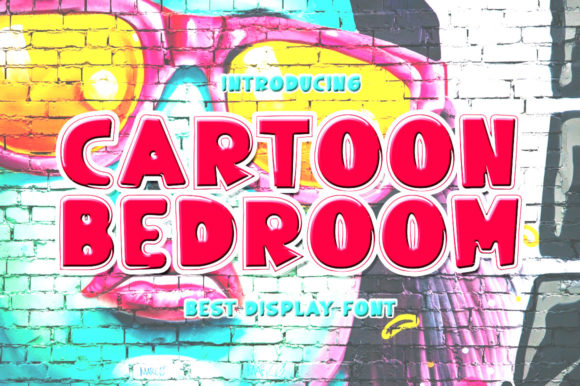
Dive into the world of Cartoon Bedroom, a font collection that takes you back to the days of laughter, imagination, and boundless creativity. Crafted by Seven Letter, these kid-friendly fonts bring a touch of whimsy and charm to all your digital adventures.
Meet Cartoon Bedroom, a friendly, thick lettered font that emanates fun in every stroke. Let your imagination run wild as this captivating display font transforms your words into playful masterpieces. Whether you're crafting personalized invitations, designing vibrant social media posts, or creating captivating presentations, Cartoon Bedroom has got you covered.
This font is more than just a collection of letters; it's a gateway to unleashing your inner child. With its bold and playful personality, Cartoon Bedroom has the power to transport you to a world where dreams come alive. It's the perfect choice for educators, parents, and anyone who wants to engage kids in a fun and educational way.
Picture this: your child's eyes lighting up with joy as they discover the magic of Cartoon Bedroom. It's not just a font; it's a key that unlocks their imagination, allowing them to explore the boundless realms of creativity. Watch as their imaginations soar, turning ordinary words into extraordinary stories.
With Cartoon Bedroom, learning becomes an adventure. Its thick and easy-to-read letters make it perfect for young readers, helping them navigate the world of words with ease. Imagine the pride they'll feel as they conquer chapter books and explore new worlds, all while feeling supported by this friendly font.
So, whether you're a creative professional, a teacher, or simply a parent looking to spark your child's imagination, Cartoon Bedroom is the perfect choice. Dive into this enchanting world of fonts and let your creativity run wild.